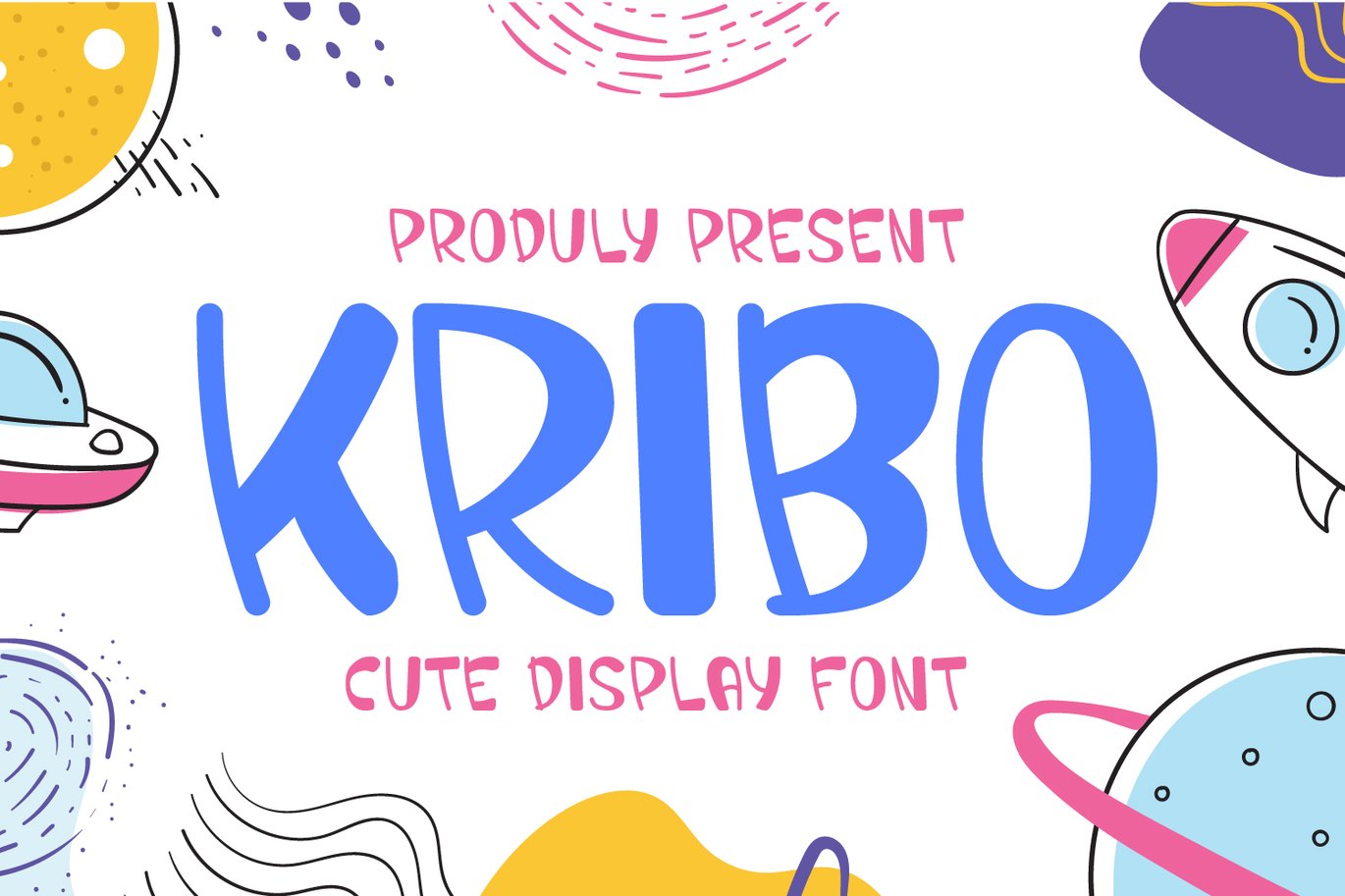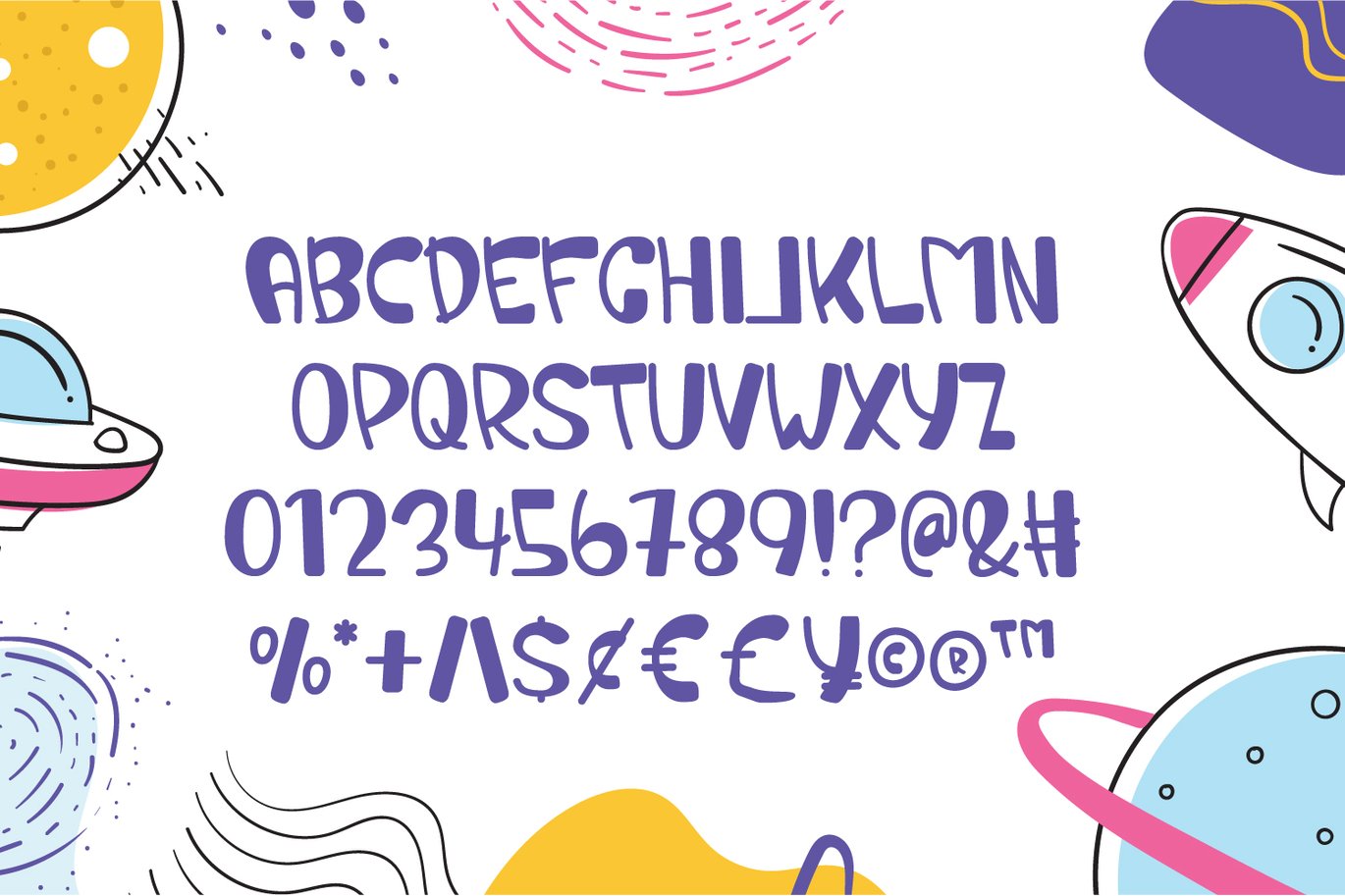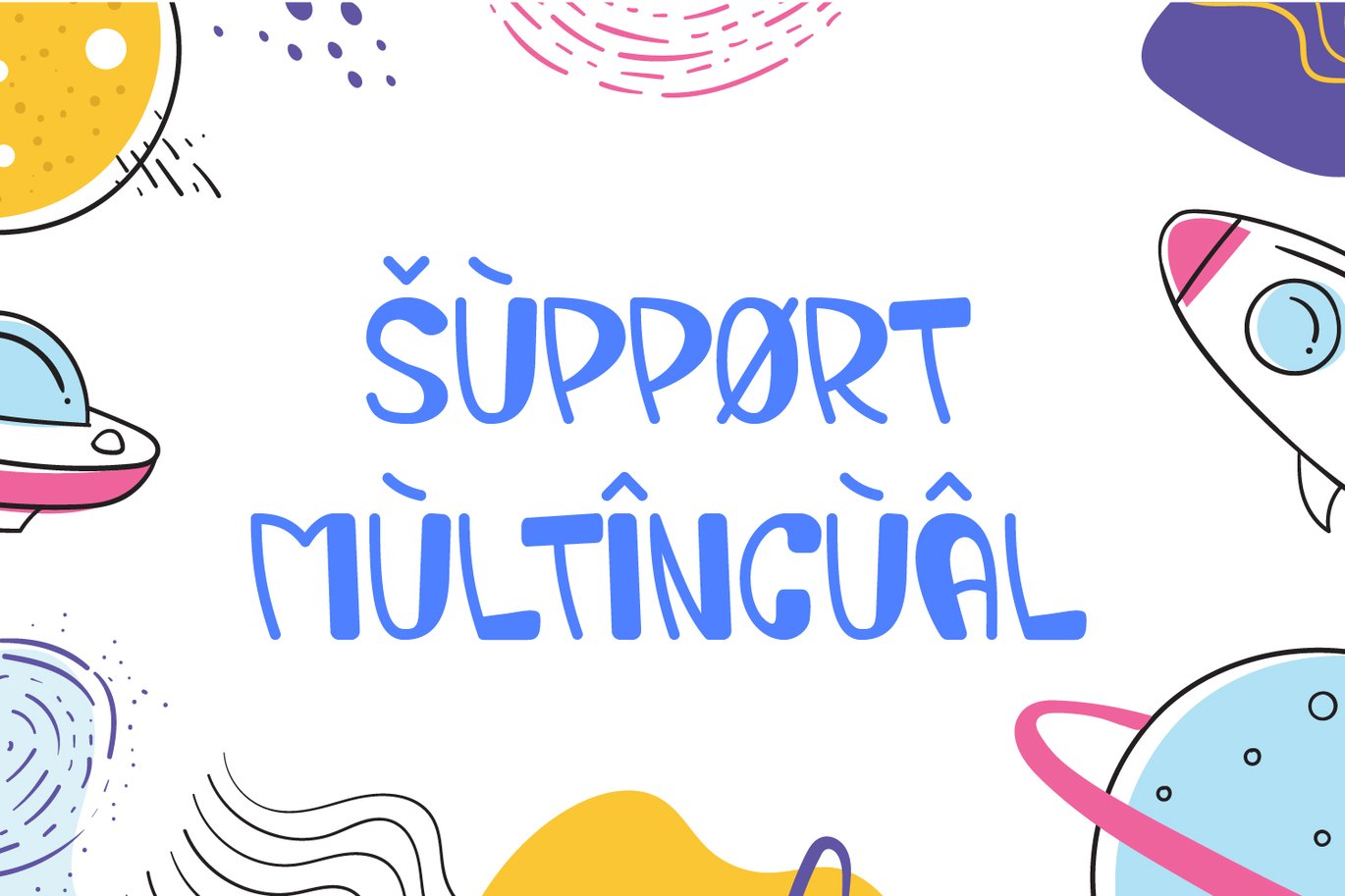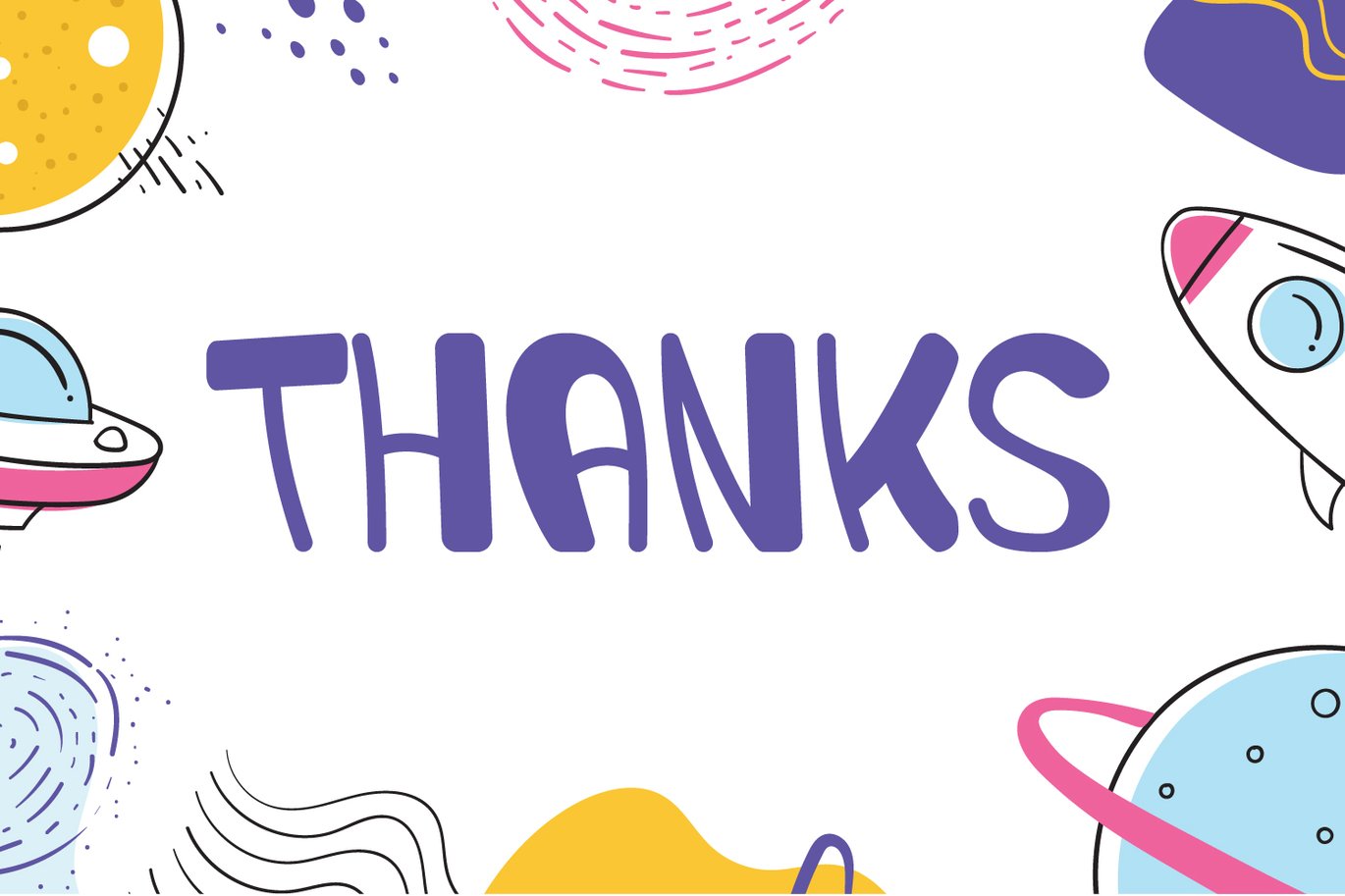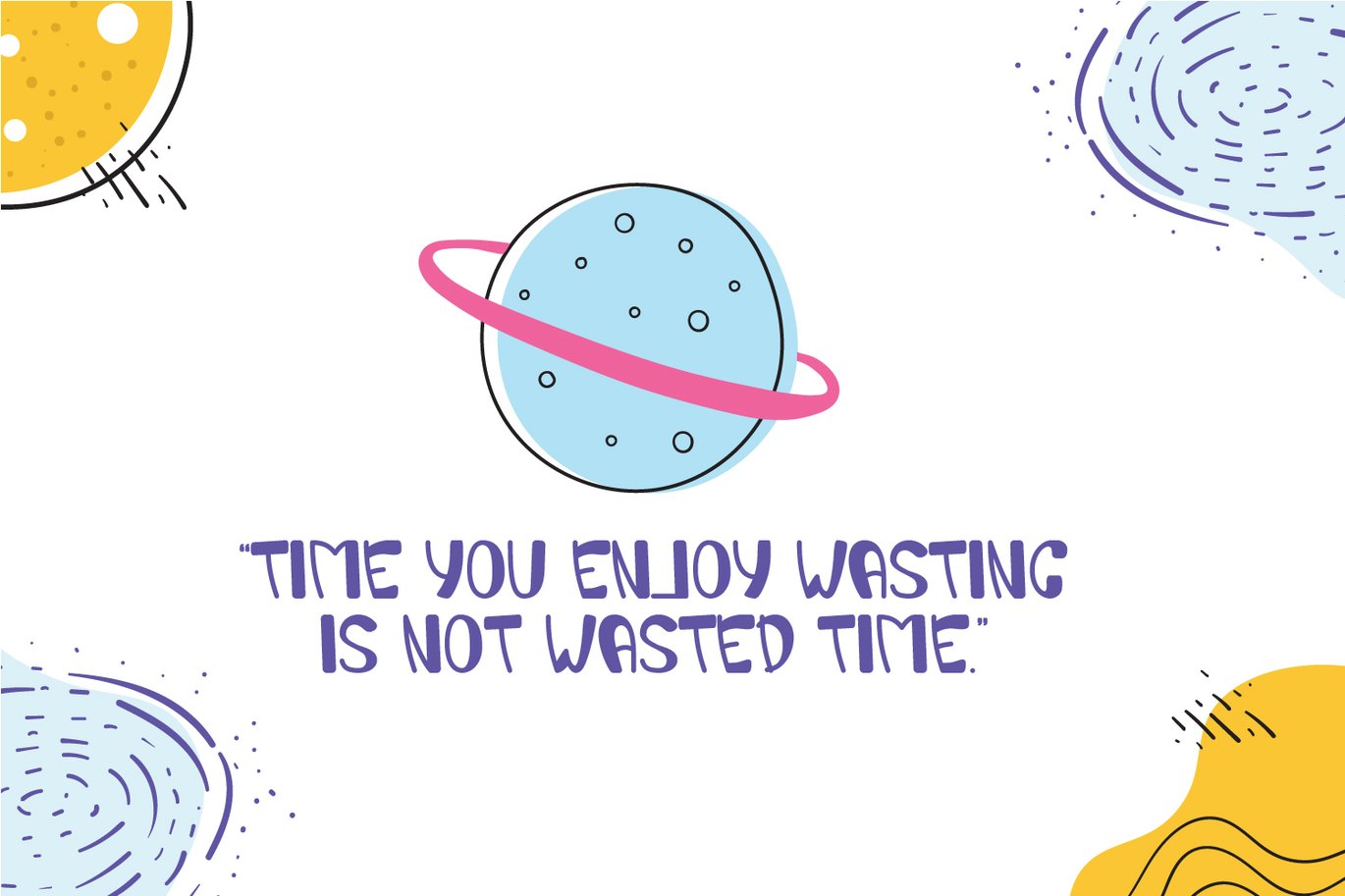
Kribo – Quirky & Cute Display Font
Introducing Kribo – Quirky & Cute Display Font
Kribo is a cute and quirky display font, that can be used for all chalkboard quotes or teaching material. Kribo is perfect for children themed designs, especially when combined with bright colors